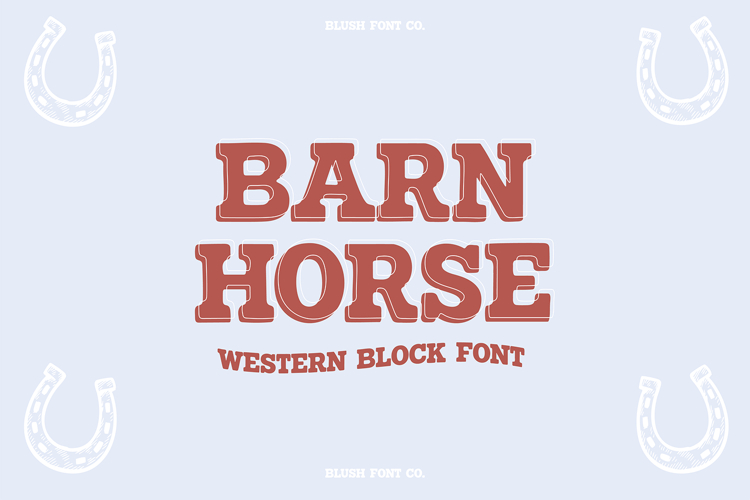
"Barn Horse" a bold western font.
This font is a bold display font that is perfect for trendy or crafty projects. Use it for branding, crafts for decor, invitations, and more! All caps glyphs, numbers, punctuation marks.